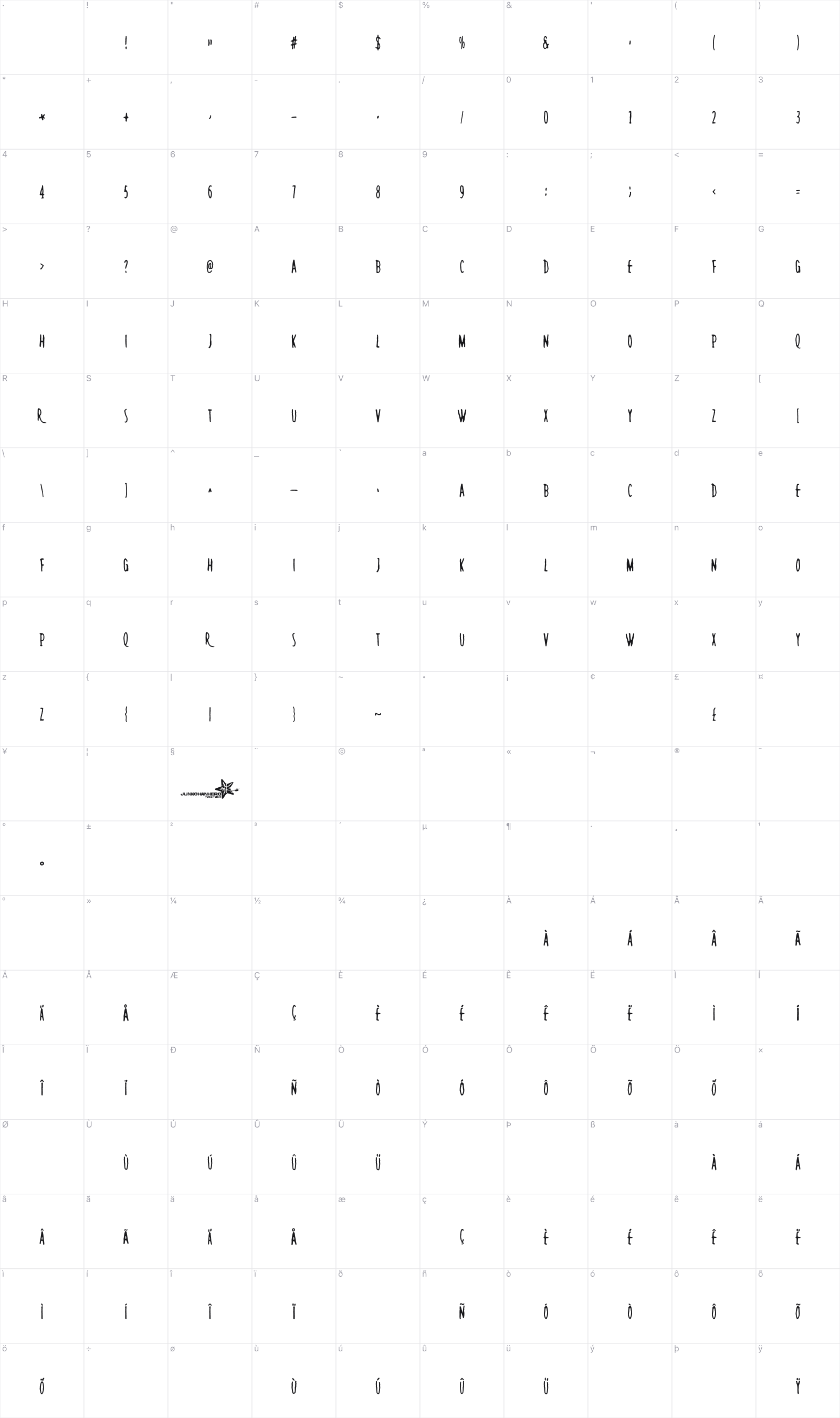
Rush Minute
Rush Minute is a condensed, uppercase display face from junkohanhero with tall, narrow letterforms that carry a loose, hand-drawn quality. The strokes feel casual and slightly uneven, giving it a quirky personality that sets it apart from more rigid condensed types. Best for headlines, posters, and branding where you want something that reads as quick and offbeat rather than polished.